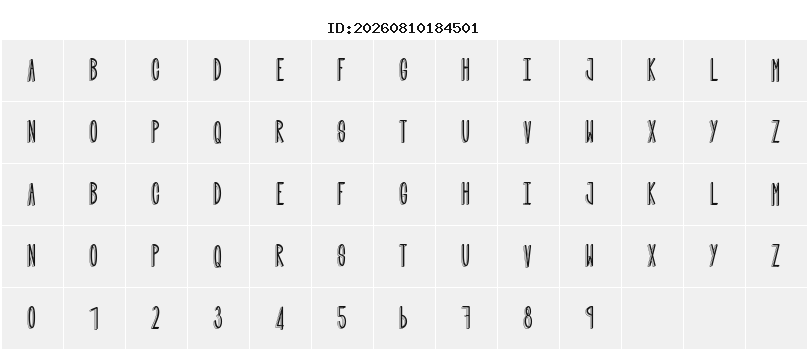
• Font Name: Quand tu n'es pas là
• Full Font Name: Quand tu n'es pas là
• Designer: Qkila
• Manufacturer: Qkila
About Quand tu n'es pas là.ttf
Quand tu n'es pas là.ttf is a modern, elegant sans-serif font designed for ultimate readability and visual harmony. Perfect for branding, headlines, web design, and print materials.